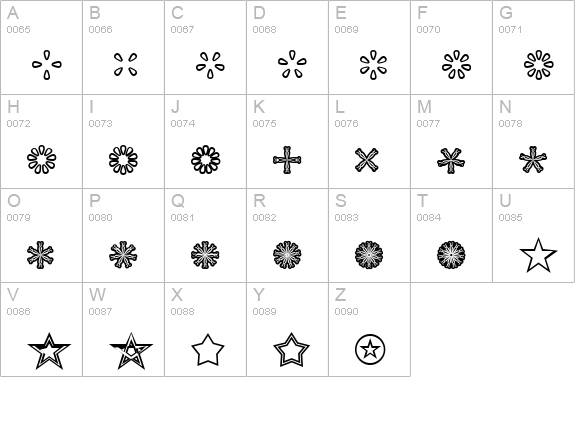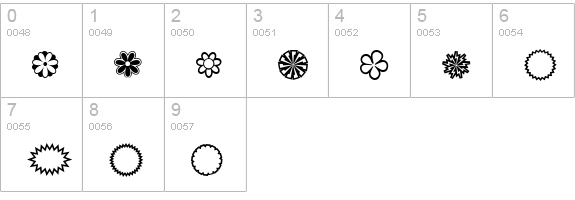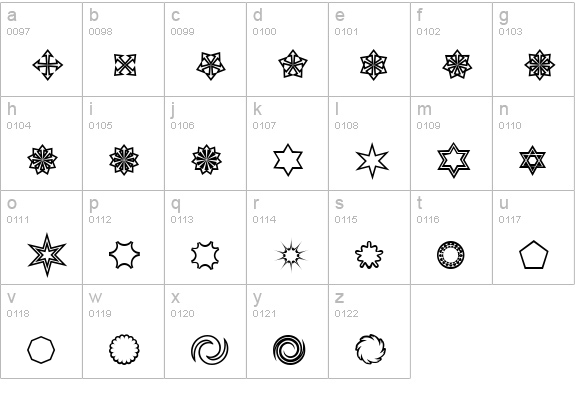
Asterisp Zeta is a modern and stylish font that brings a touch of elegance to any design project. With its sleek lines and dynamic curves, this typeface exudes sophistication and creativity. Whether you're designing a logo, creating a poster, or crafting a website, Asterisp Zeta is sure to make a bold statement. The best part? Asterisp Zeta is available for free download at FontsMarket.com. This means you can access this beautiful font at no cost, making it a fantastic option for both personal and commercial projects. Don't miss out on the opportunity to elevate your designs with the stunning Asterisp Zeta font - download it today and let your creativity soar!